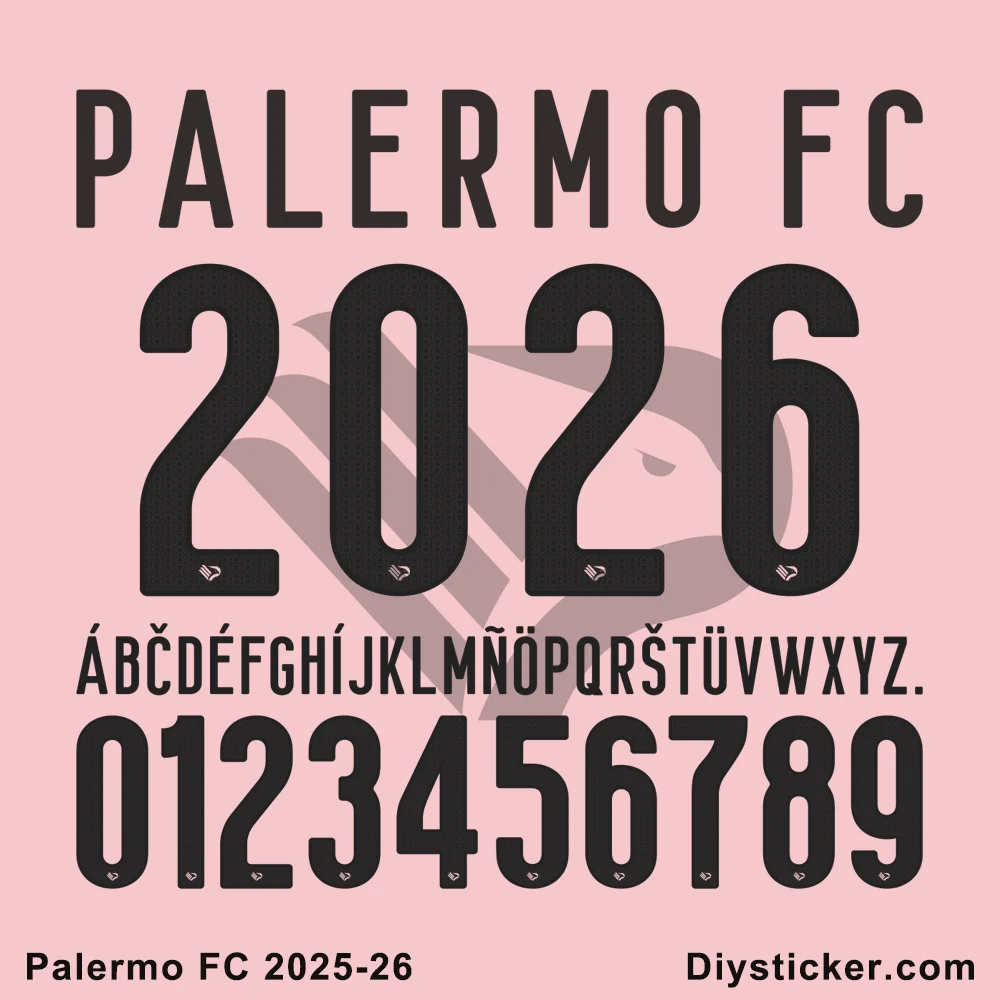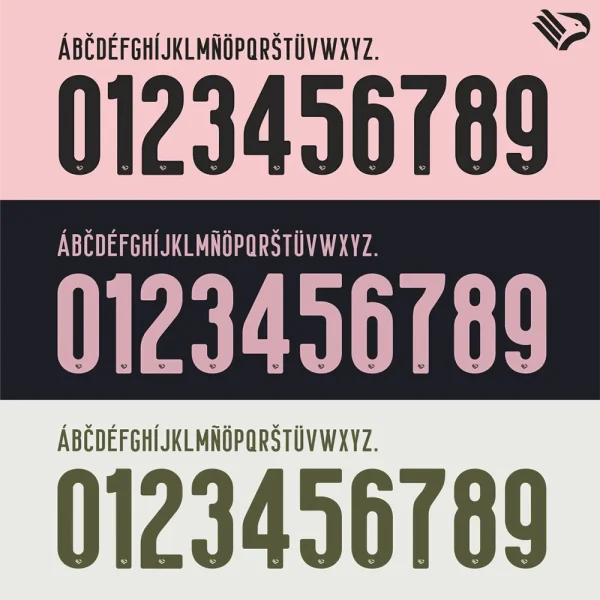
Bring the spirit of Sicily to your designs with the official Palermo FC 2025-26 Font. This distinctive typeface, featuring unique numerical elements, is used by the historic Rosanero club on its official kits, Serie B graphics, and all communications for the new season.